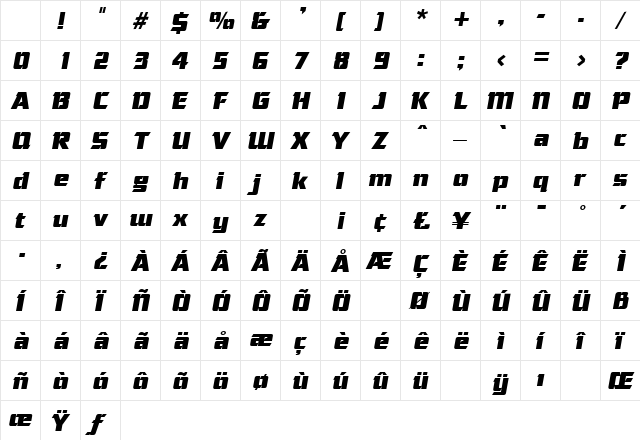
Cornered is a composed and adaptable typeface that performs quietly and consistently across a wide range of design contexts. The slanted form adds forward momentum and visual energy.